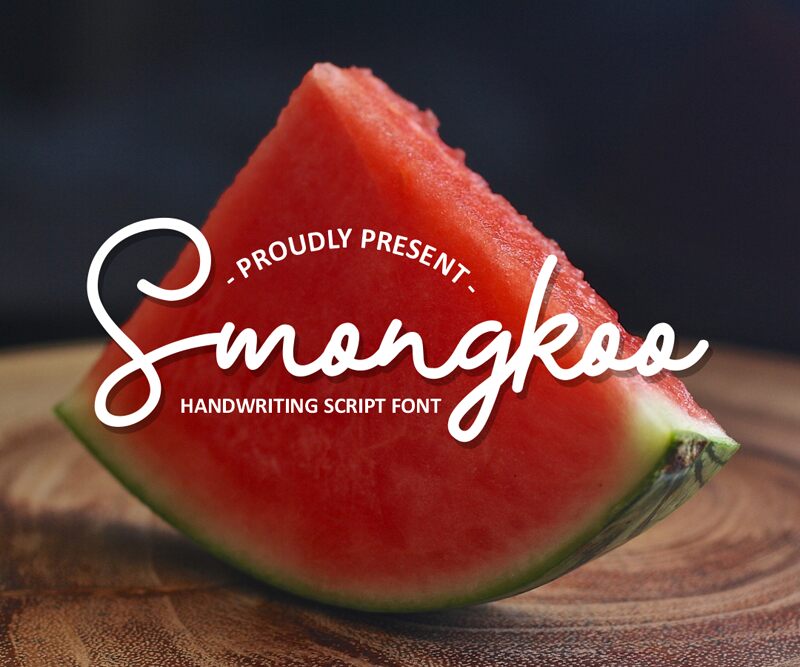
Smongkoo font is a magnificent curved display font designed by Almaz Studio. Smongkoo font is a minimalist script type fonts. Smongkoo font is a sophistication with its lettering.